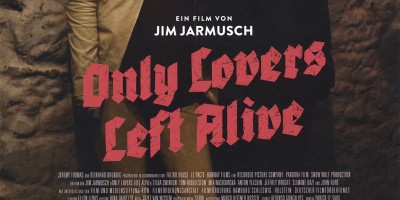
Bouwsma Script Font is perfect for artisan construction company branding, heritage building restoration communications, traditional carpentry workshop signage, craftsman home builder marketing, architectural heritage preservation materials, custom woodworking studio promotions, historic renovation service campaigns, and authentic craftsmanship celebration events. This masterful typeface excels in applications where traditional building craftsmanship, artisanal construction heritage, and time-honored building techniques are essential for connecting with audiences who appreciate the skilled artistry of traditional construction and the enduring beauty of handcrafted architectural excellence.
What makes Bouwsma Script Font so exciting is its authentic embodiment of construction craftsmanship and building heritage that perfectly captures the essence of traditional building arts and the meticulous skill of master craftsmen who shaped architectural history through generations of refined technique. The font features hand-lettered, artisanal letterforms with construction characteristics that evoke blueprint annotations and craftsman signatures. Its skilled character conveys expertise, tradition, and building mastery - essential qualities for brands serving construction markets, heritage preservation, and audiences who appreciate traditional building methods, artisanal craftsmanship, and the time-honored traditions of skilled construction work and architectural heritage preservation.
The Bouwsma Script Font family includes multiple crafted weights and construction-inspired variations that enhance its artisanal appeal. Some versions feature subtle texture elements that simulate aged blueprints and workshop notes, while others provide refined variants that maintain the font's craftsman character with enhanced readability for professional construction applications and commercial building heritage communications.
Whether you're creating branding for construction companies, designing materials for heritage building services, or developing marketing campaigns for craftsmanship experiences, Bouwsma Script Font Free Download provides the artisanal authority your project requires. The font's construction character makes it particularly effective for brands targeting building enthusiasts who appreciate traditional craftsmanship, heritage construction, and the skilled artistry of time-honored building techniques and architectural preservation.
Build with traditional mastery using Bouwsma Script Font and construct authentic brand communications with typography that celebrates the skilled heritage of construction craftsmanship and building artistry.